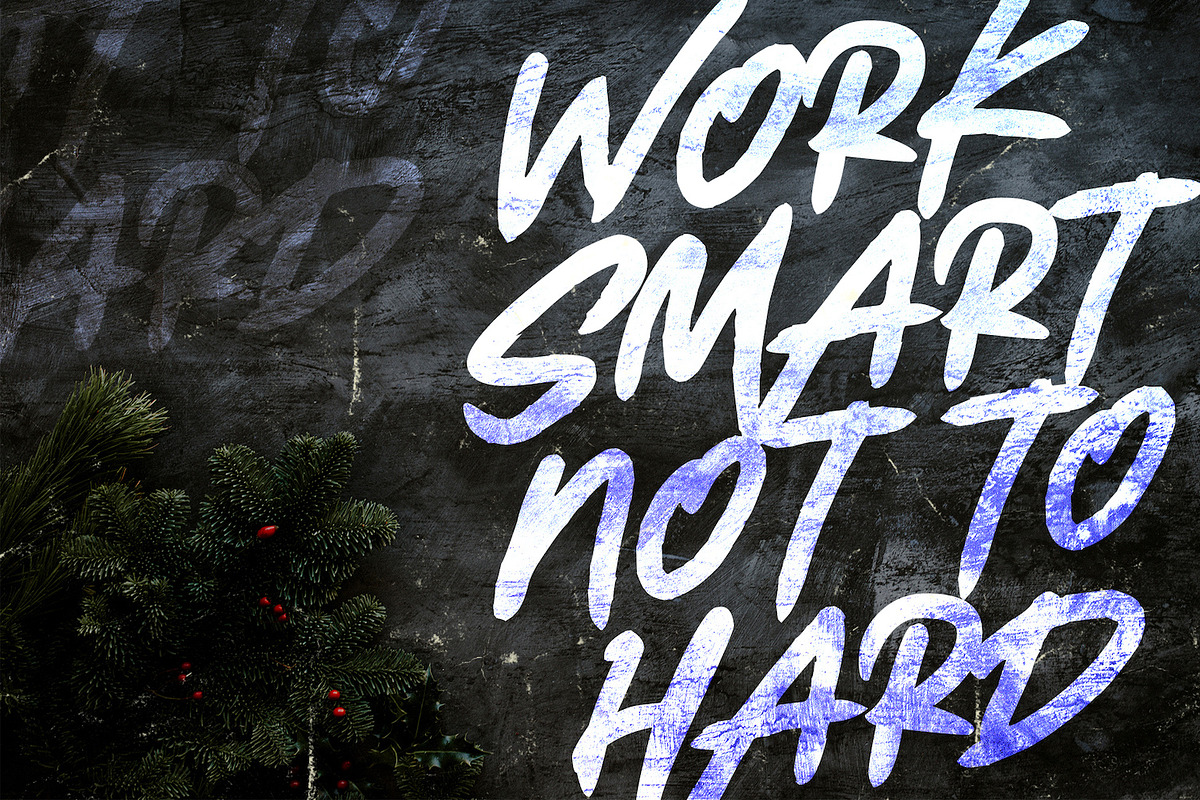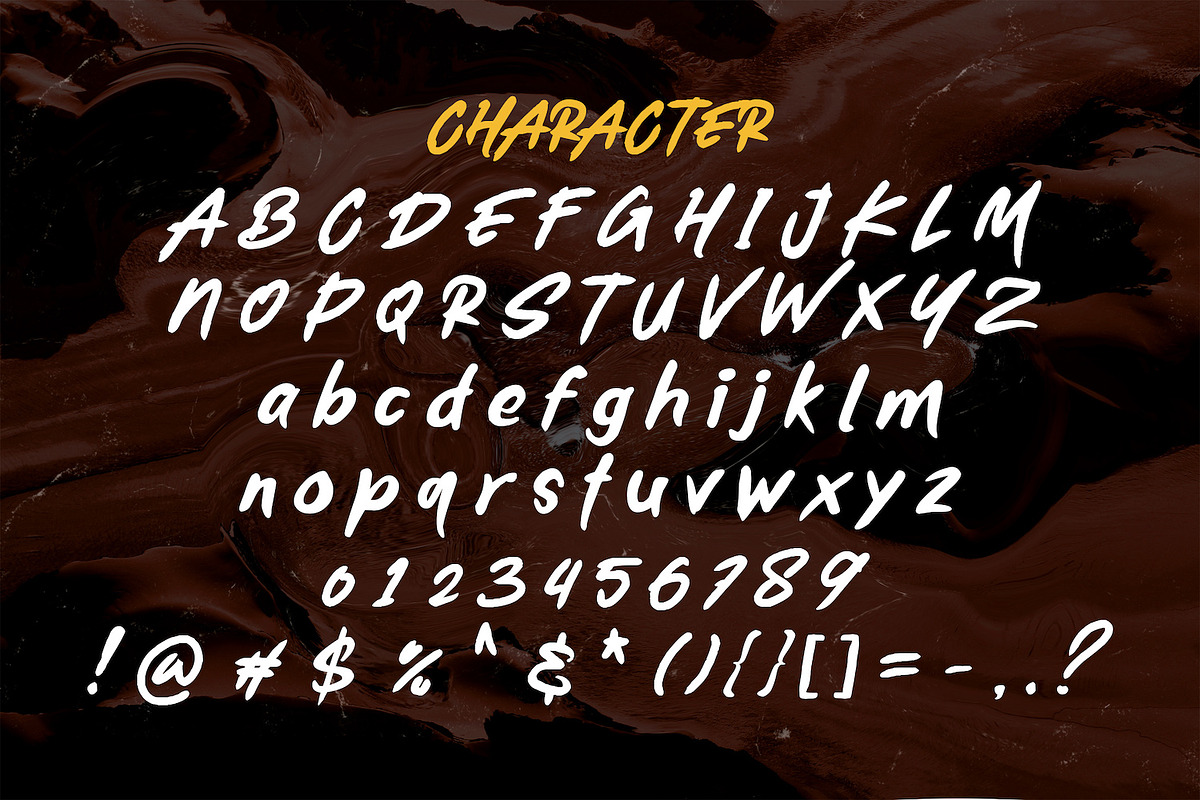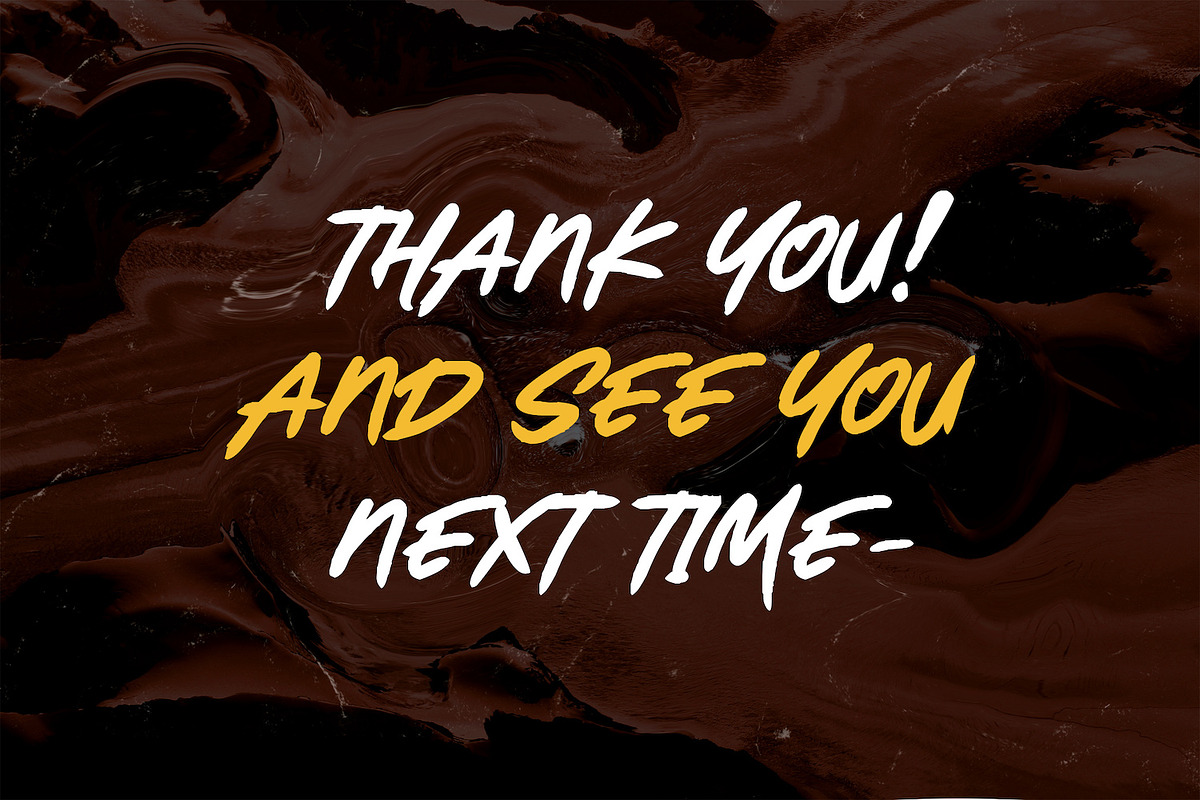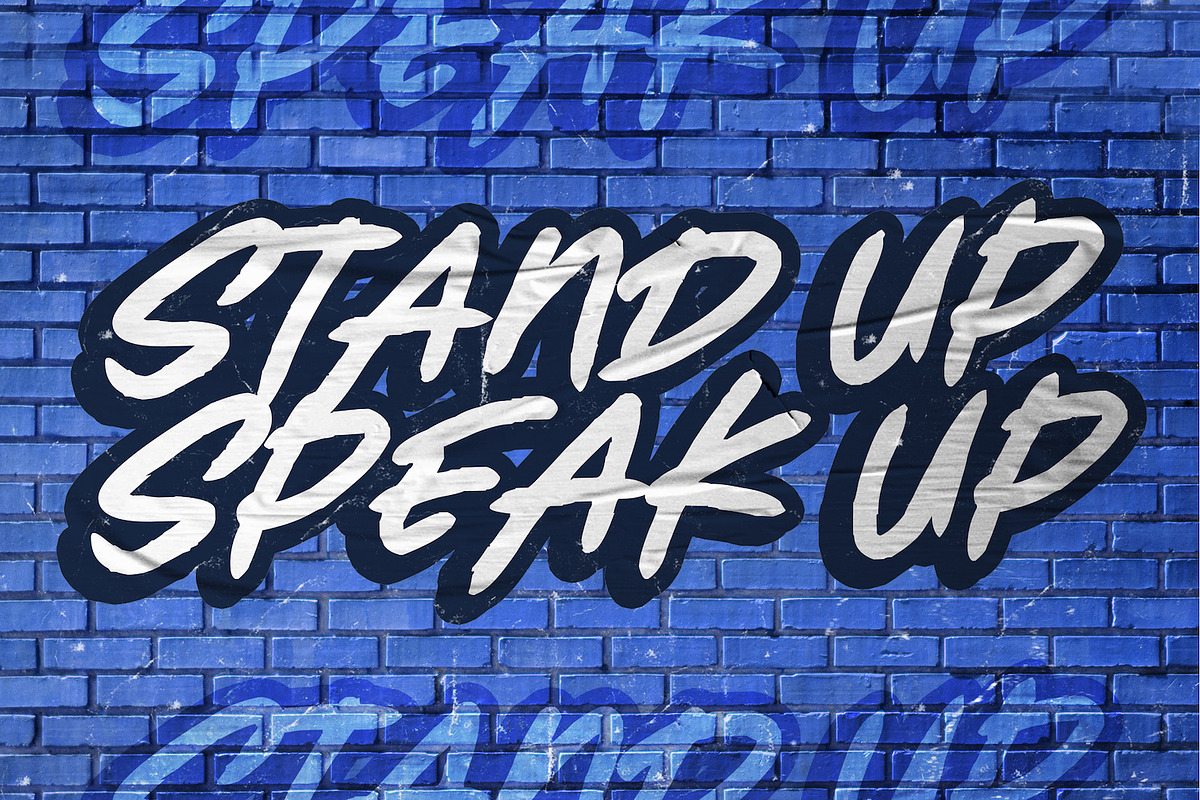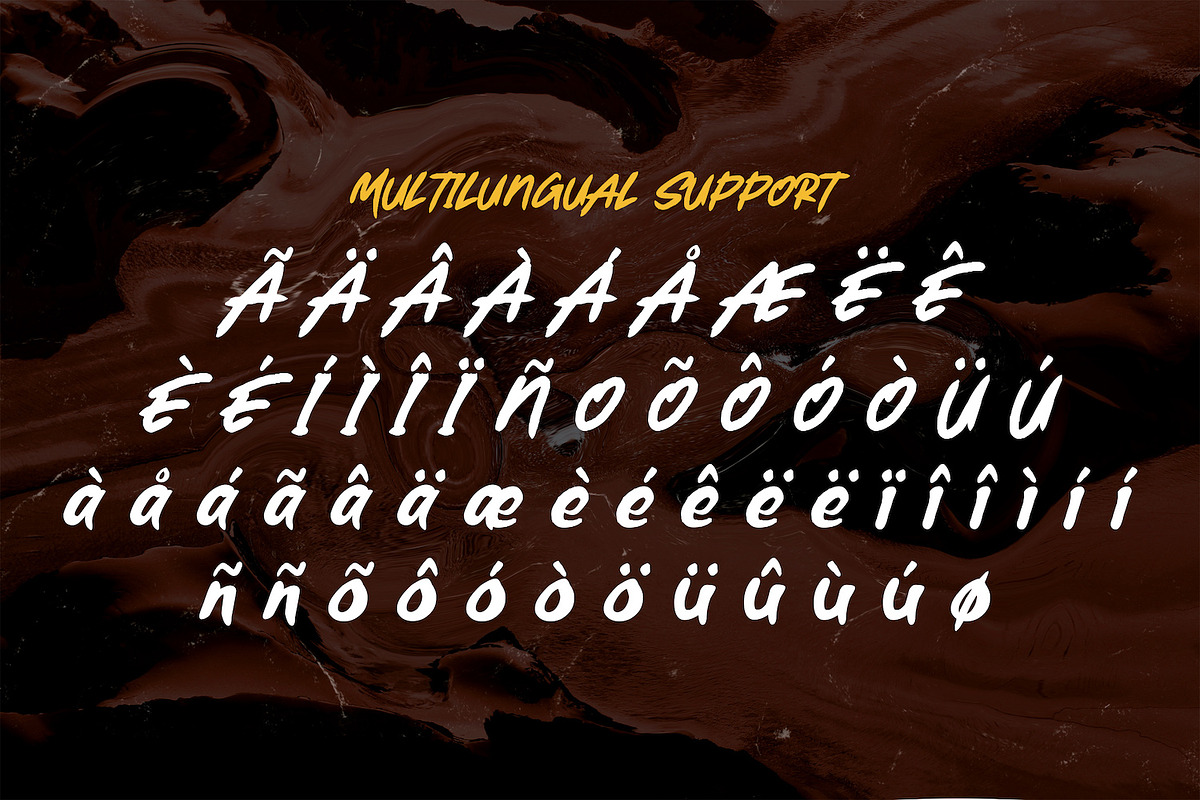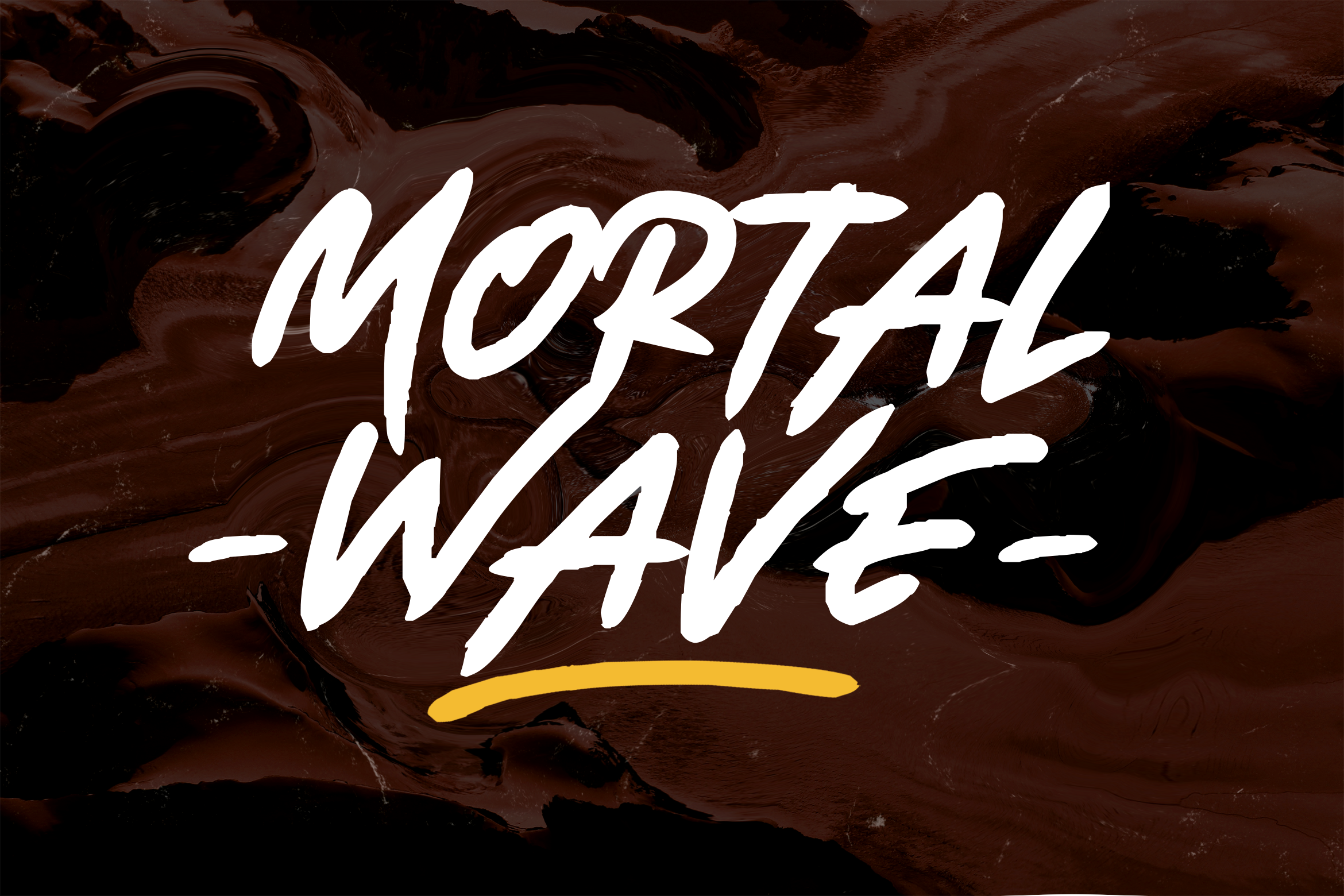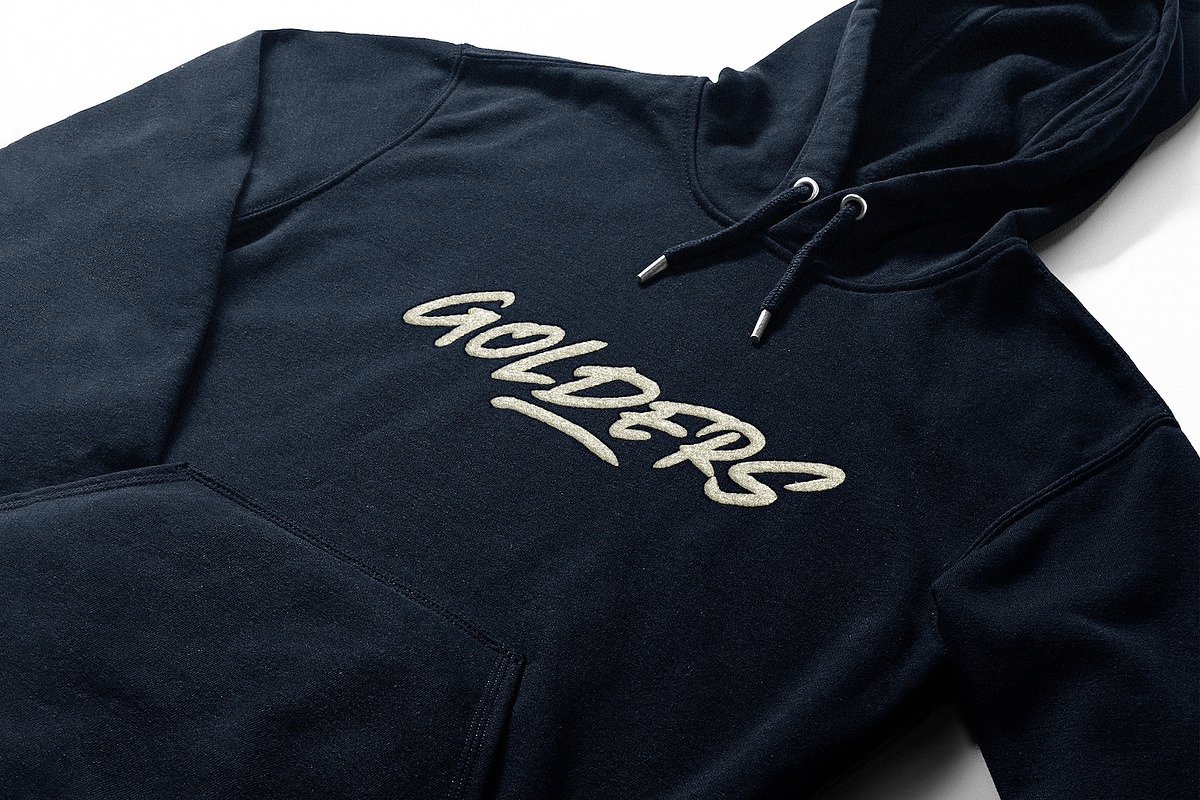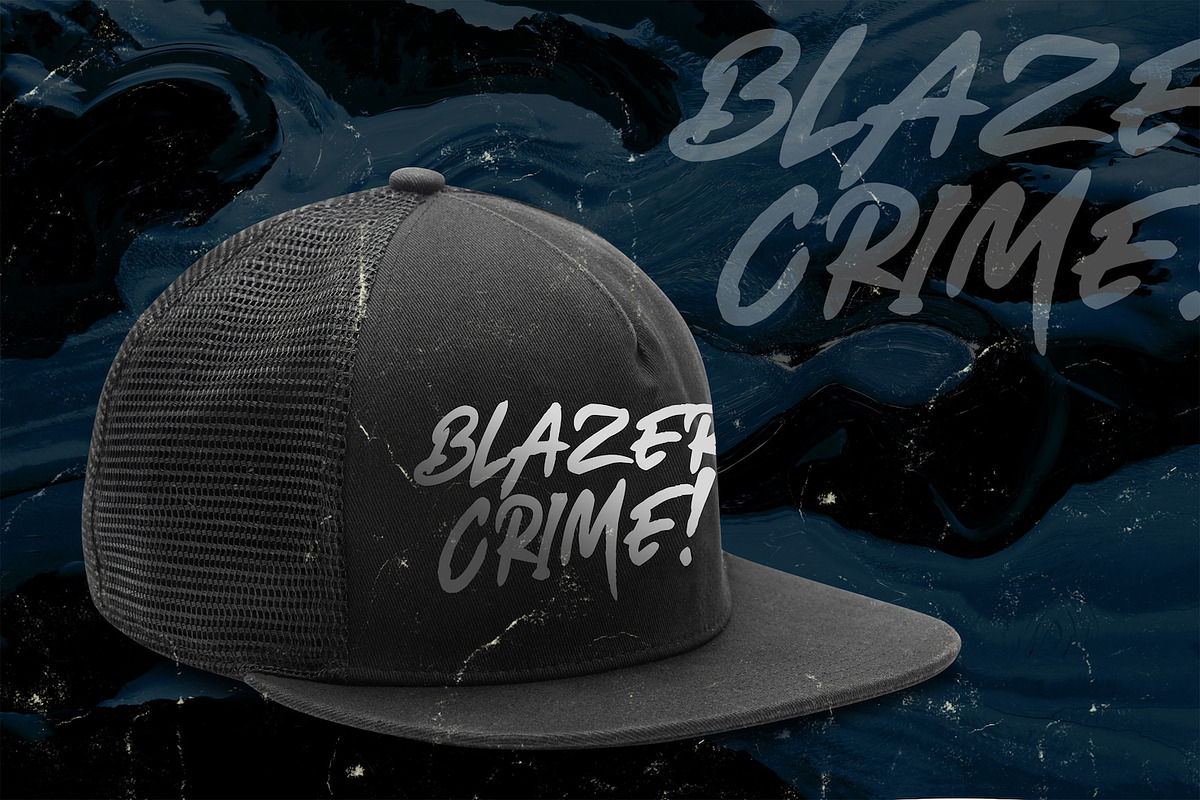
Mortal Wave - Dry Brush Font
Introducing Mortal Wave - Dry Brush Font
The Mortal Wave is natural dry brush font. It’s perfect for logos, quotes, posters, playful lettering, for clothing, and every other design which needs an unique touch.